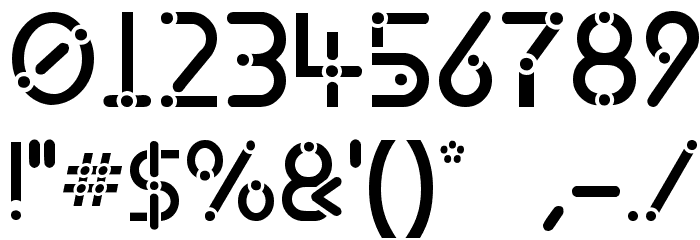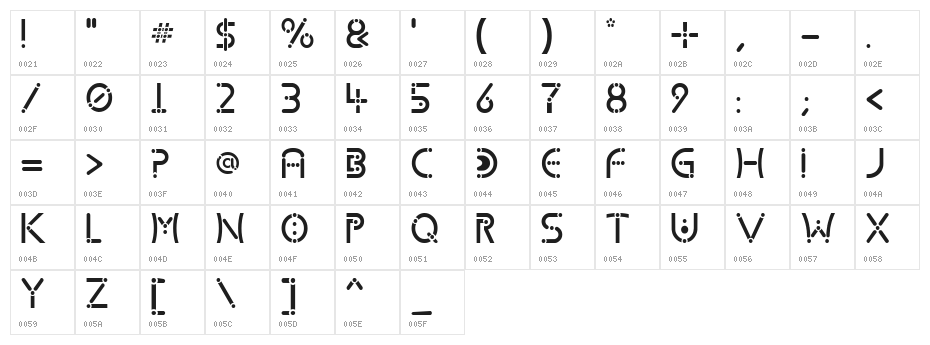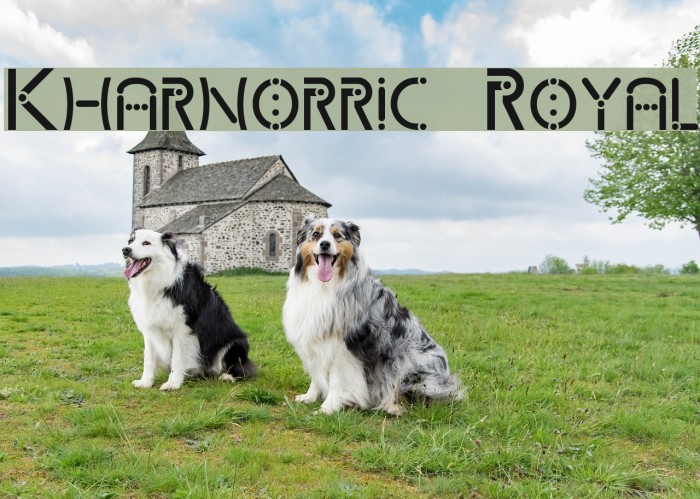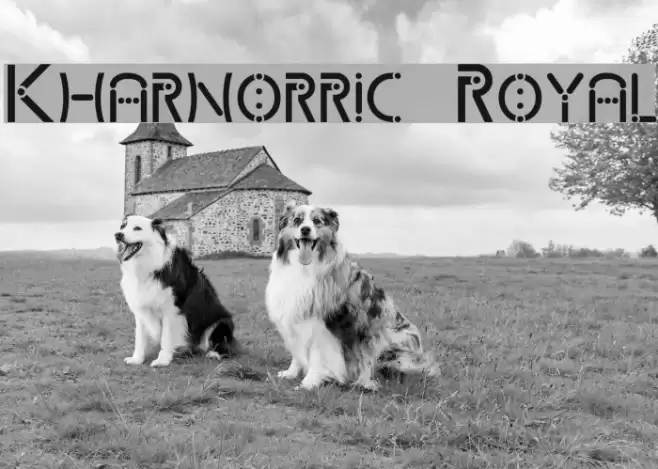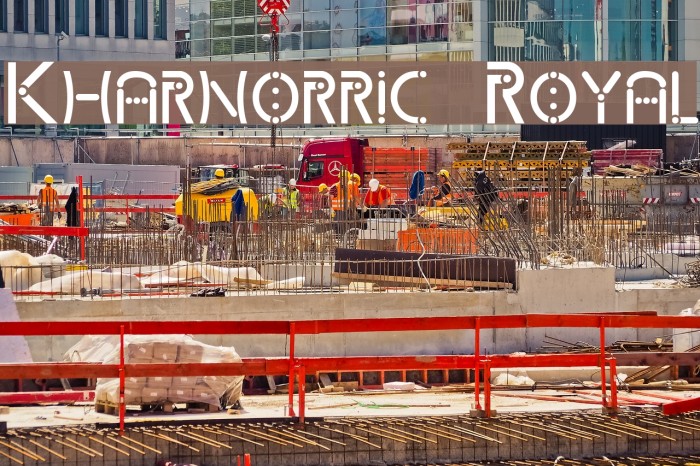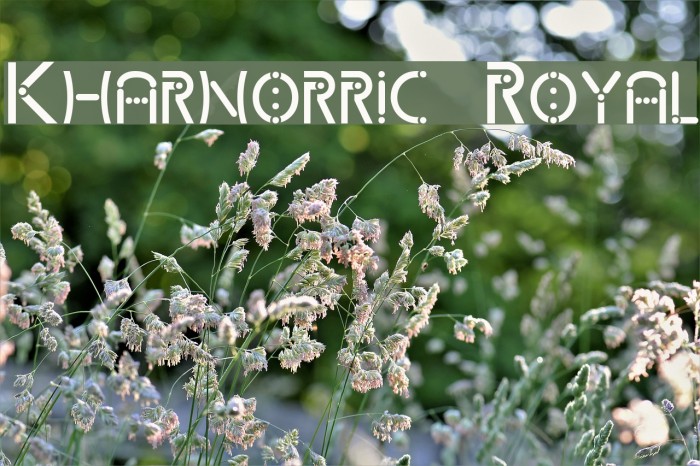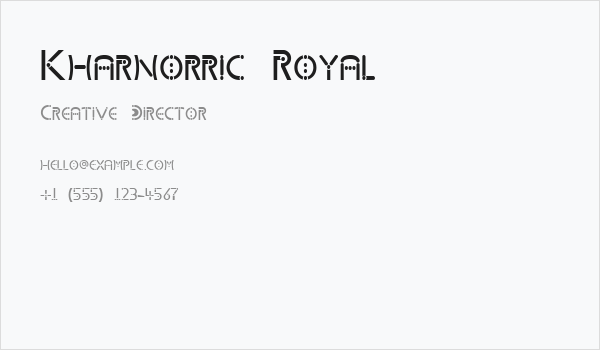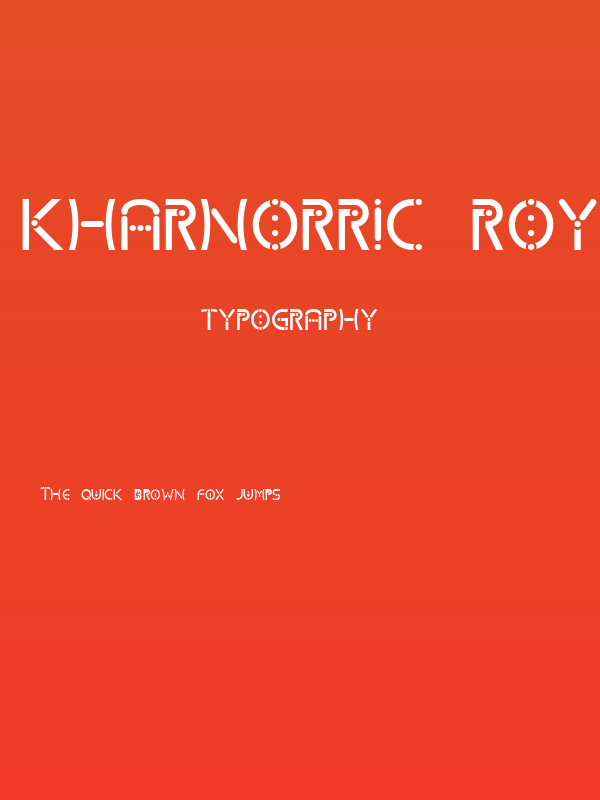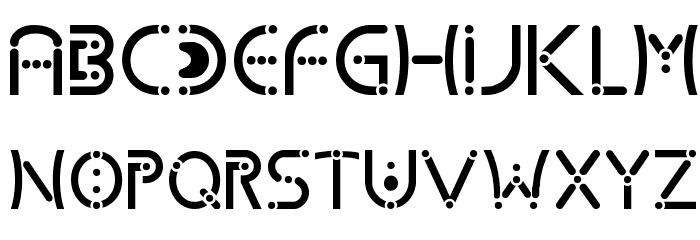
Kharnorric Royal Font
Kharnorric Royal Description
This font features a unique and modern design with a futuristic aesthetic. Each character is constructed with bold, geometric shapes and distinct circular cutouts, giving it a digital and tech-inspired look. The uppercase and lowercase letters maintain a consistent style, with clean lines and a structured form. Numbers and special characters follow the same design principles, ensuring uniformity across all glyphs. The font's innovative style makes it stand out, ideal for projects that require a contemporary and cutting-edge appearance.
| Proposed Projects | Ideal for tech branding, digital media, sci-fi themed designs, and modern advertising. |